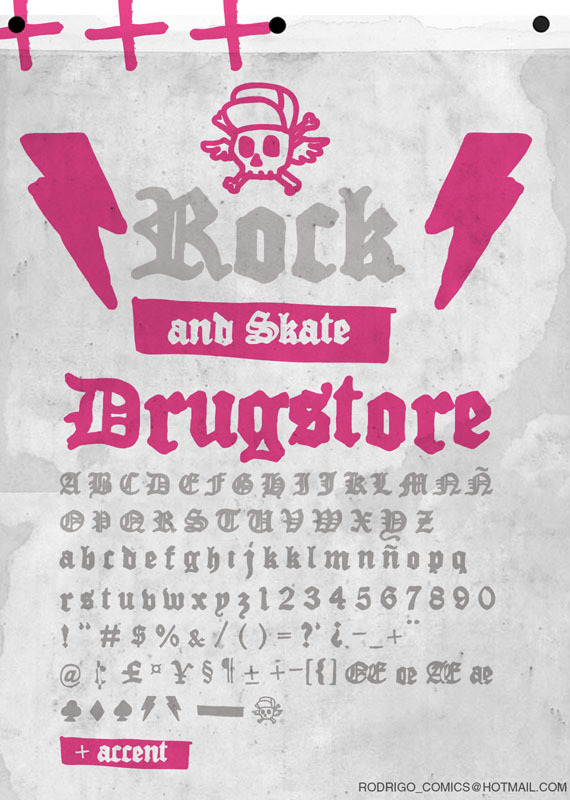
Drugstore by Rodrigo Araya Salas of rasdesign is a free medieval blackletter font with a forceful silhouette. Broad strokes bend into irregular wedges, and pointed joins look roughly cut rather than formally penned. Uneven edges give the lettering a decidedly scrappy underground quality.
It is strongest on music posters, where the dense shapes set a raw punk or metal direction. Album covers and streetwear graphics suit its handmade aggression. Its natural audience is alternative music and skate culture, especially projects that favor rough lettering over polished revivalism.
Drugstore is a font by Rodrigo Araya Salas (RAS).